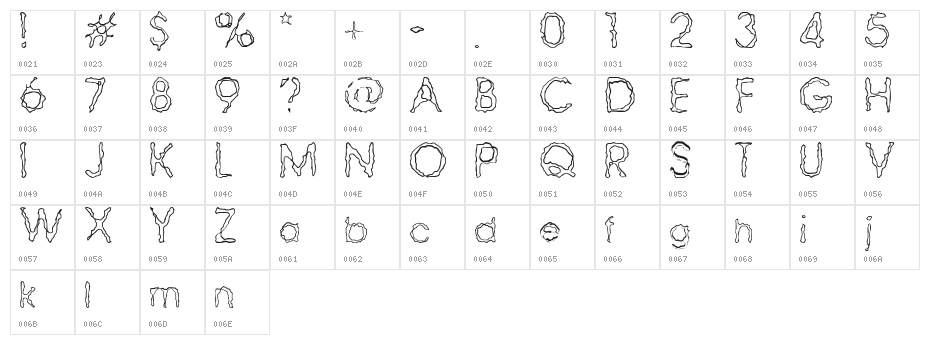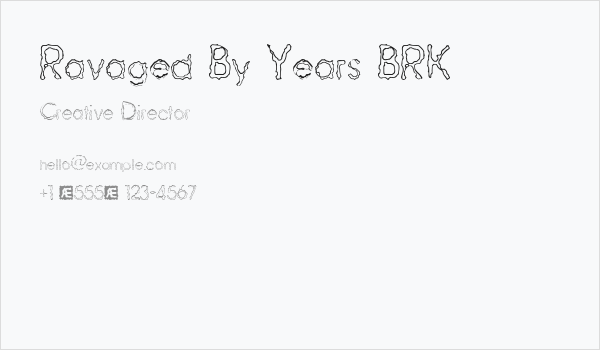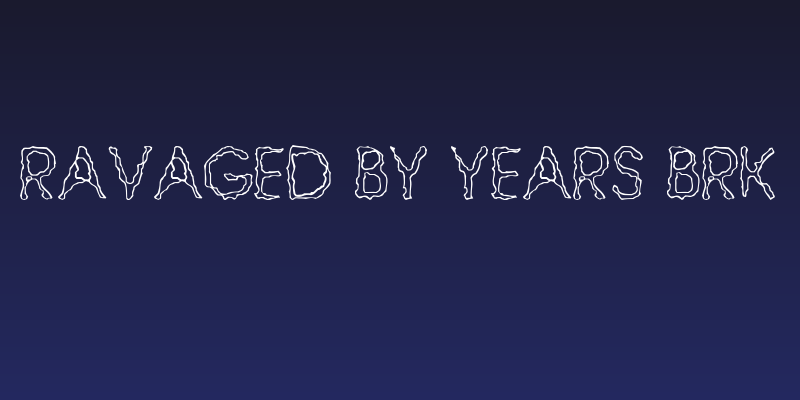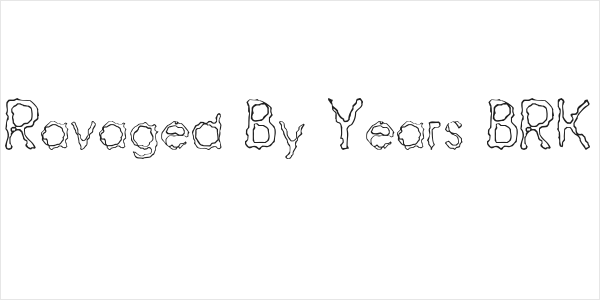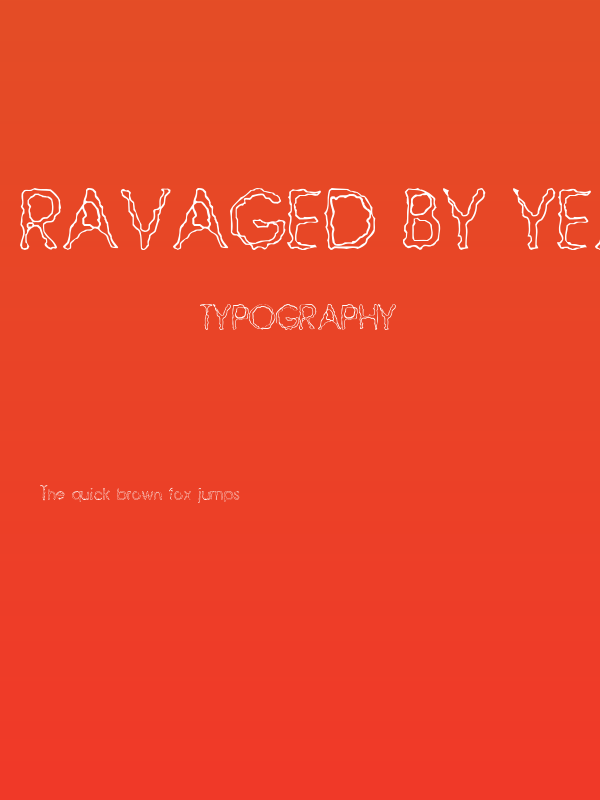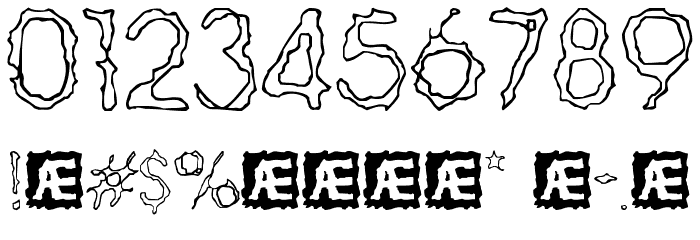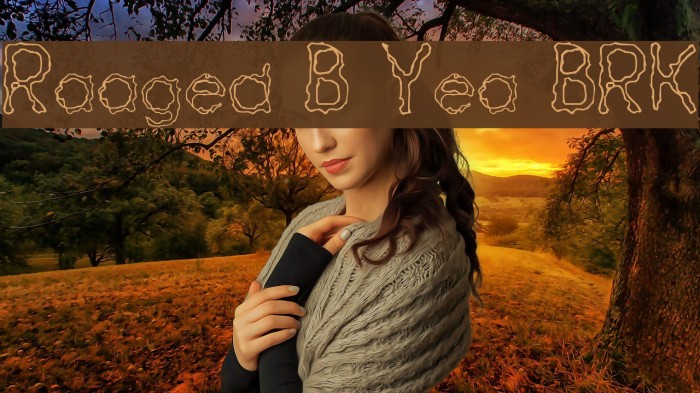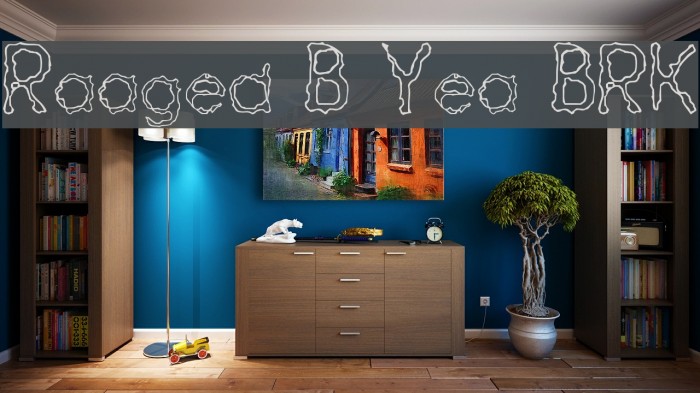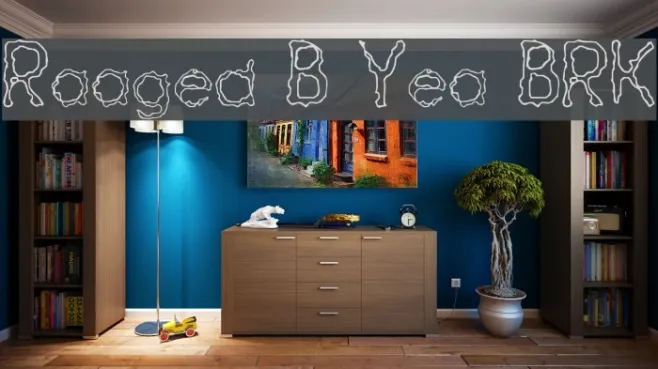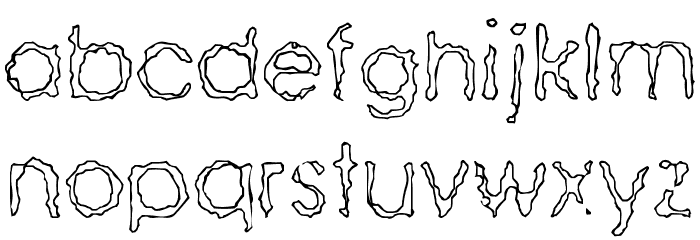
Ravaged By Years BRK Font
| Projets proposés | Ideal for horror-themed designs, vintage posters, album covers, or any project needing a gritty, aged look. |